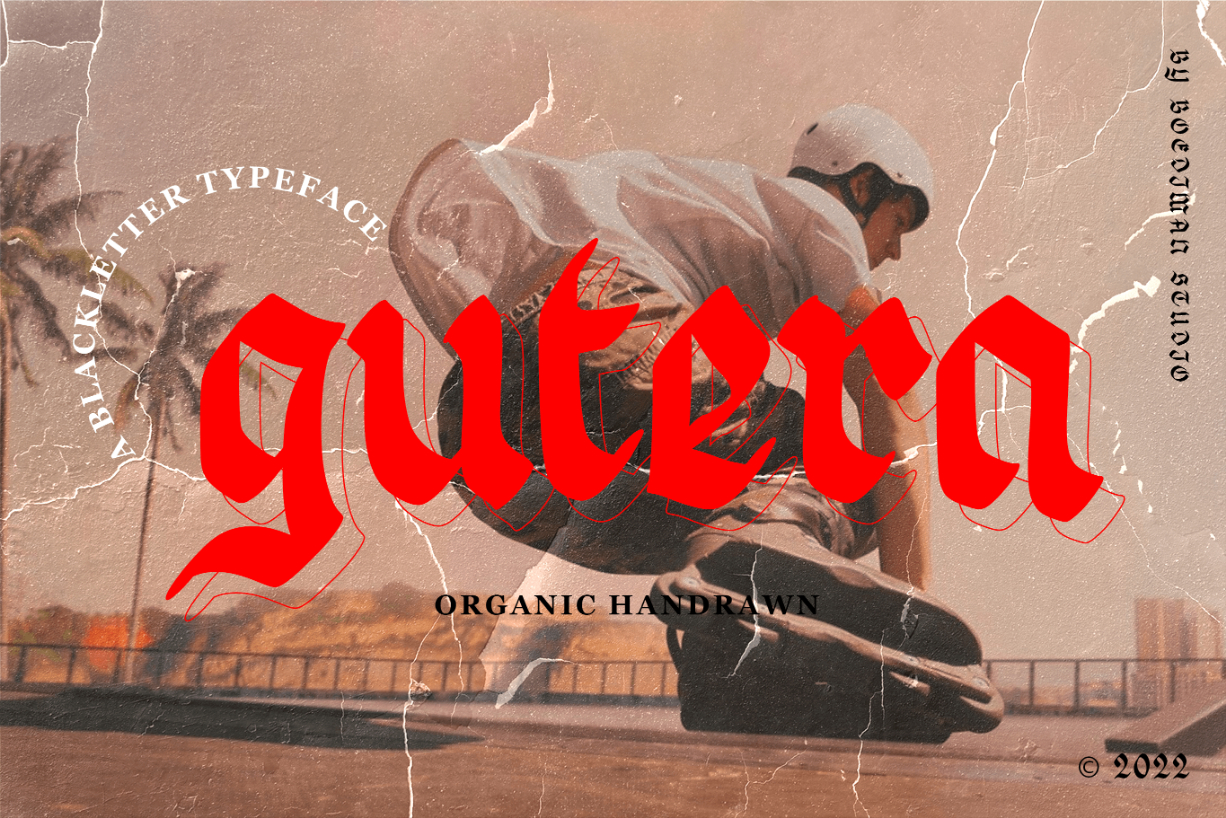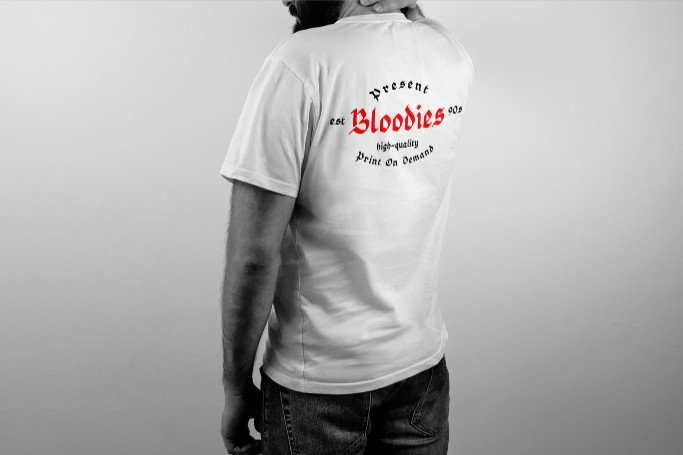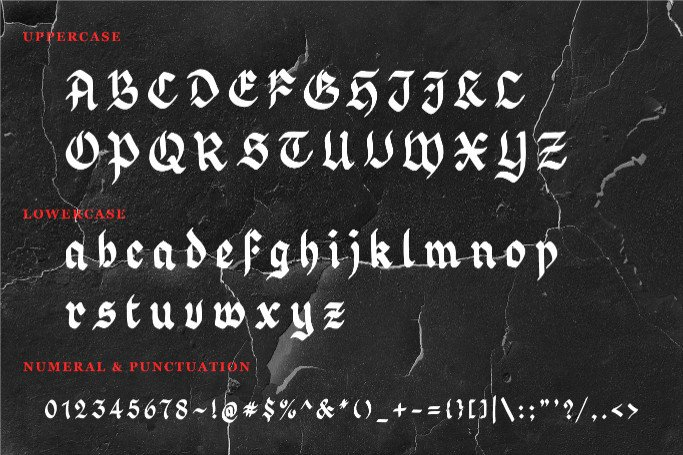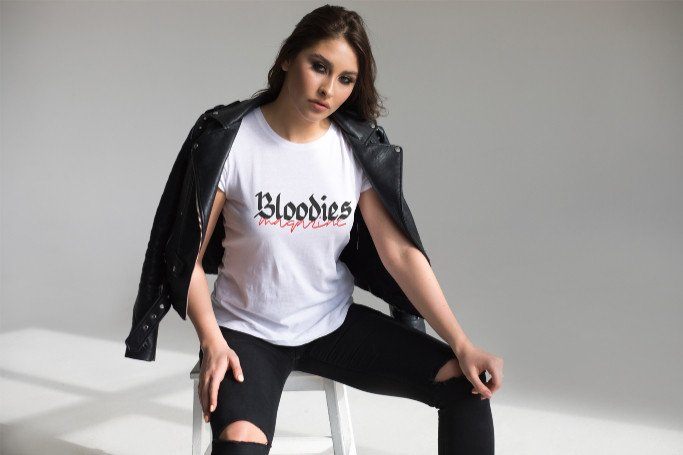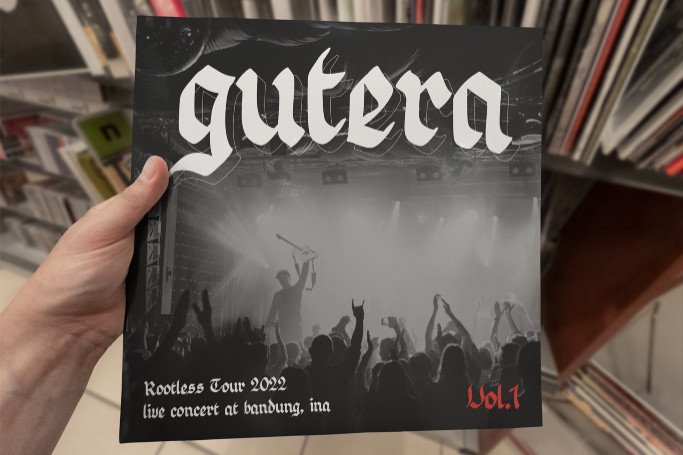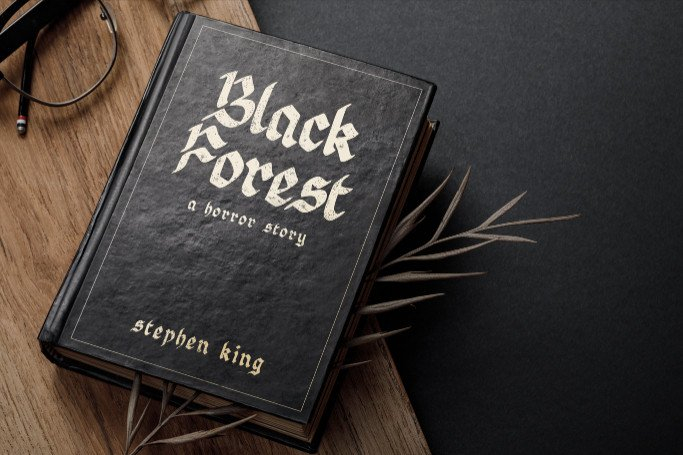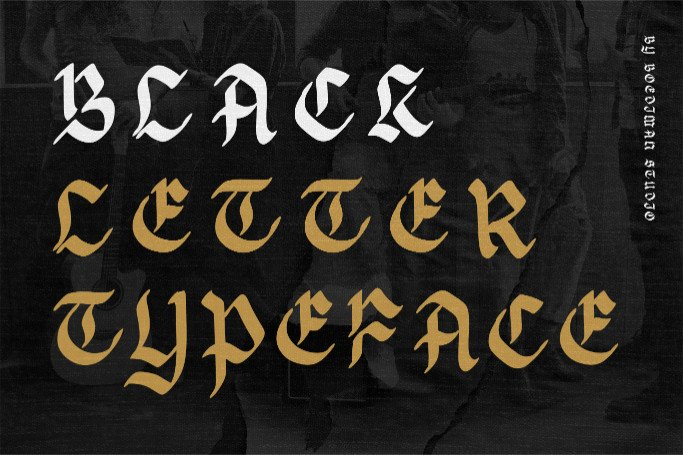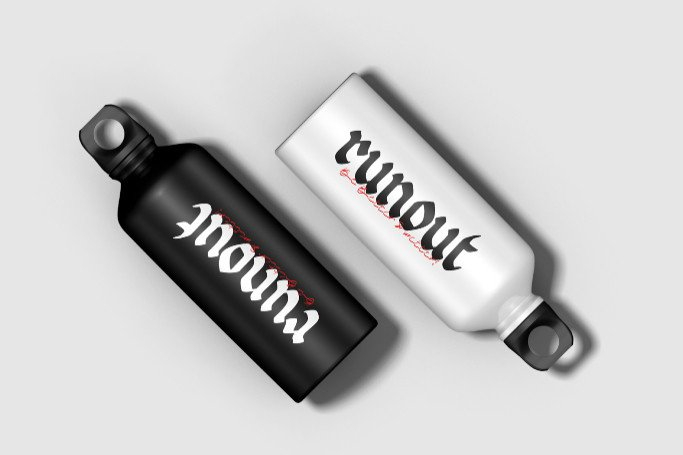
Gutera Font
About Gutera Font
Gutera is a stylish and modern blackletter font described by an elegant touch, perfect for your favorite projects. Fall in love with its incredibly distinct and timeless style and use it to create spectacular designs!